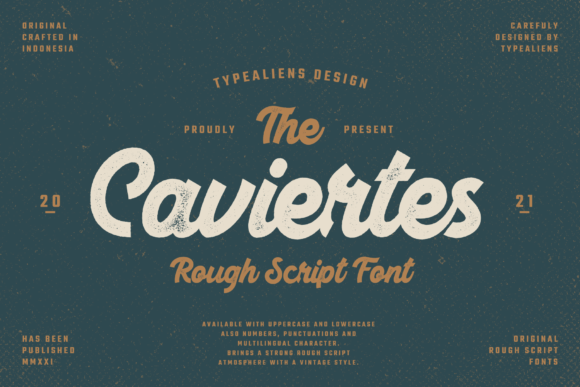
Introducing Caviertes, the mesmerizing script font that ignites your creativity and transforms your words into an enchanting visual symphony. Its captivating curves are reminiscent of vintage brush lettering, evoking a sense of nostalgia and timeless elegance.
With Caviertes, your words dance across the page, leaving an indelible mark on the hearts of your readers. Its bold and confident strokes demand attention, making your messages impossible to ignore. Unleash the power of Caviertes and watch your designs come alive with an unmatched vibrancy and panache.
This exquisite font family, meticulously crafted by the talented artisans at typealiens, is a versatile chameleon that seamlessly adapts to a myriad of creative endeavors. Whether you're crafting logos that exude sophistication, designing eye-catching posters that capture imaginations, or creating social media graphics that spark engagement, Caviertes is your trusted companion.
Step into a world of limitless possibilities with Caviertes. Let your imagination soar as you create captivating headlines that dance off the screen, enchanting invitations that promise unforgettable experiences, and stunning branding materials that leave a lasting impression. Caviertes is not just a font; it's an artistic gateway to a realm where your creative visions take center stage.
Don't settle for ordinary fonts that blend into the background. Embrace the allure of Caviertes and watch as your designs leap off the page, captivating audiences with their elegance and charm. Download Caviertes today and embark on a creative journey like no other.